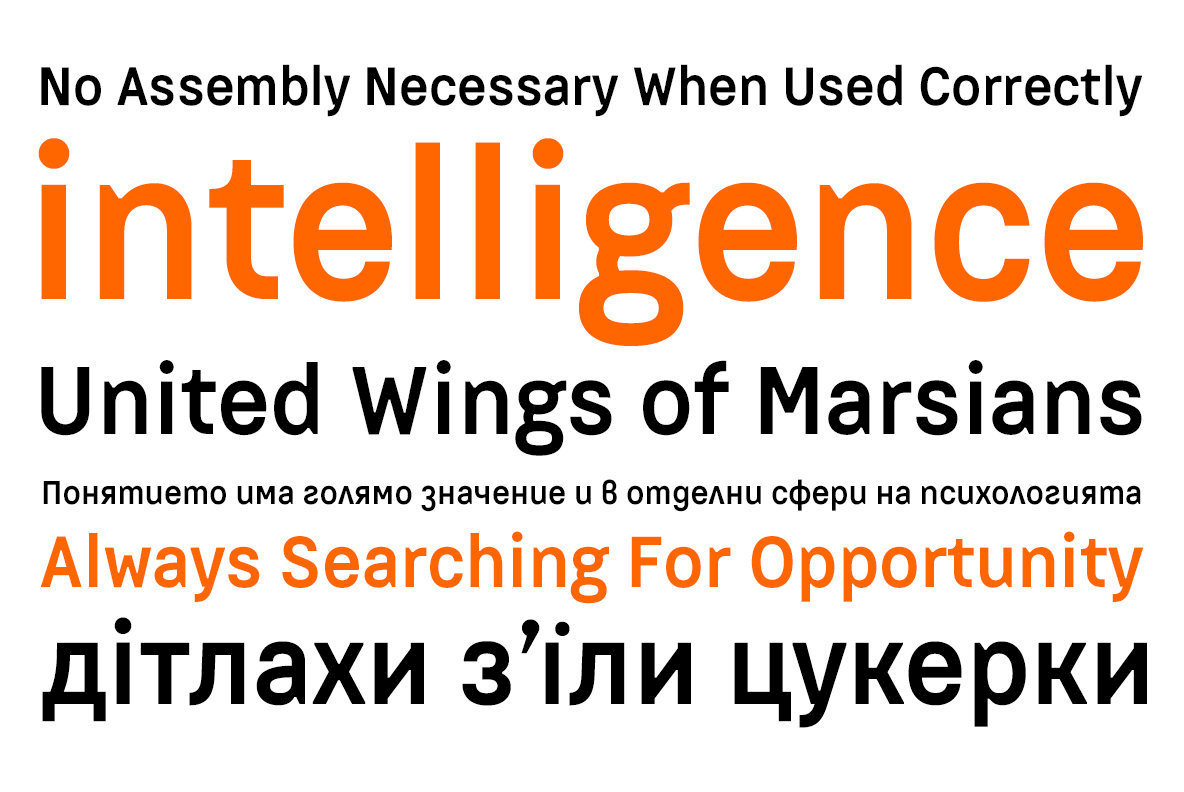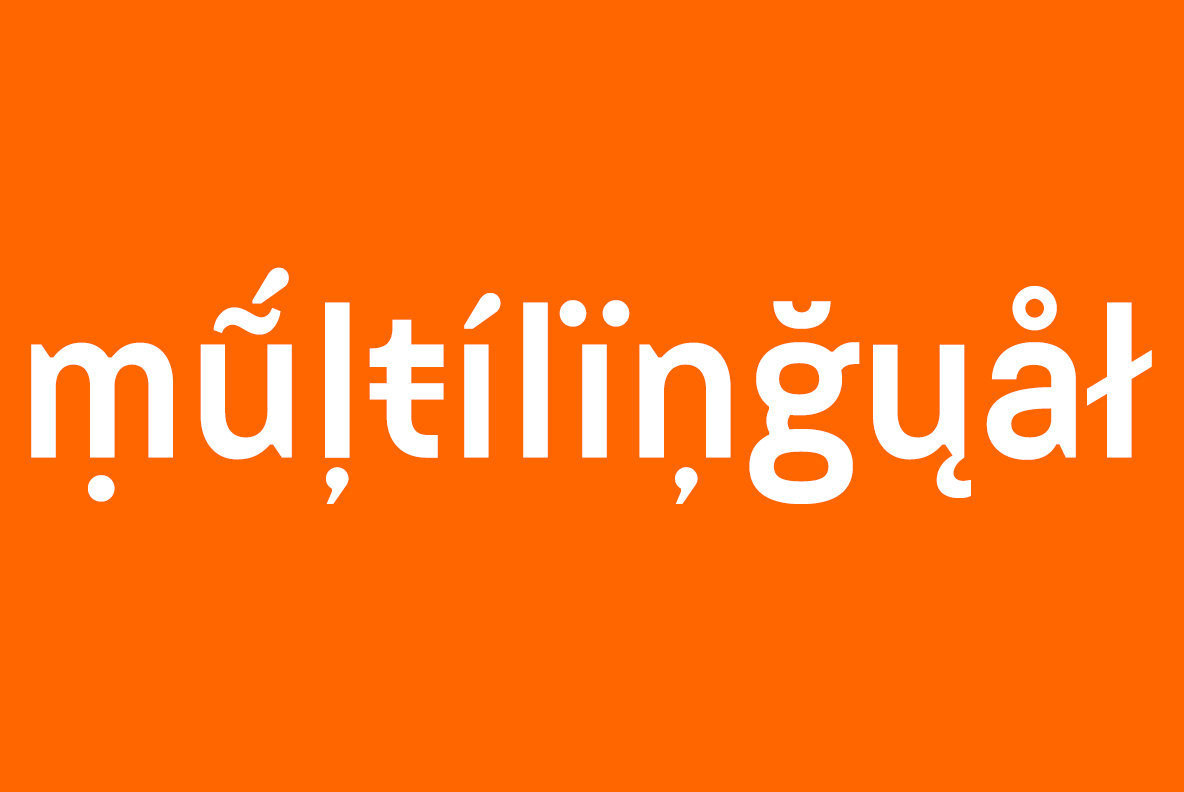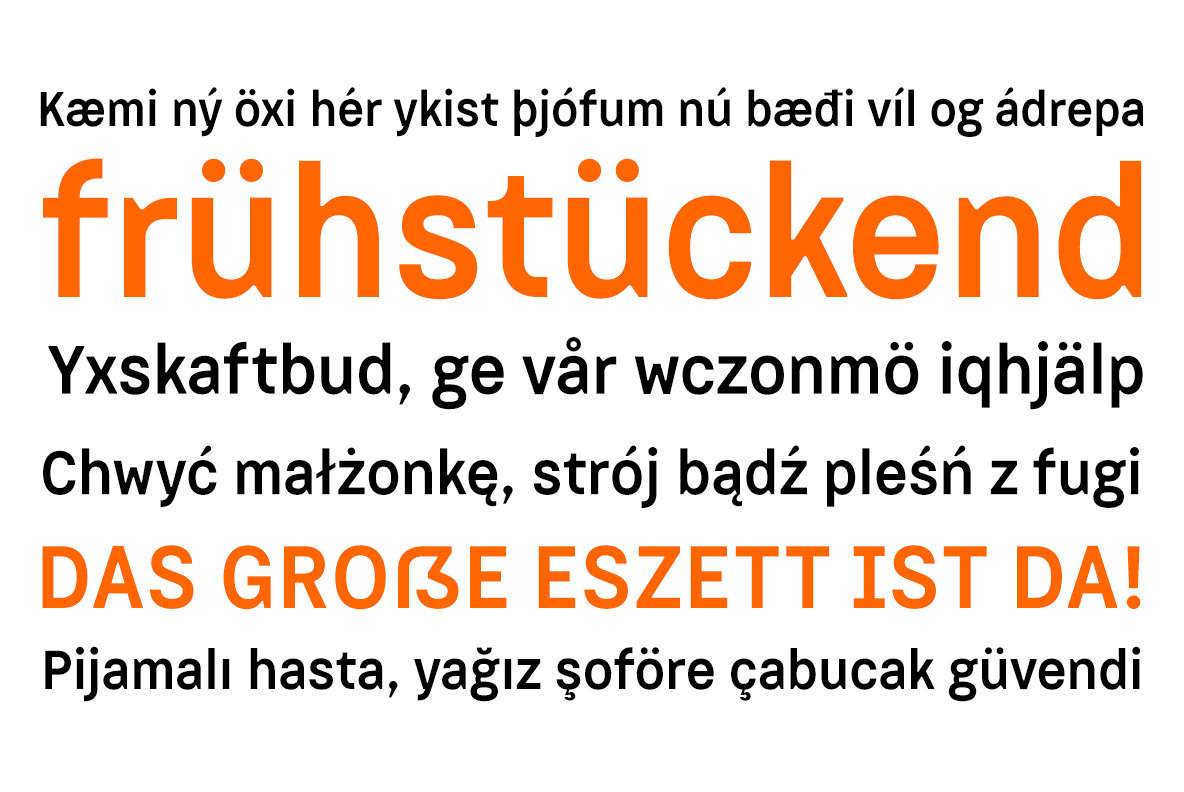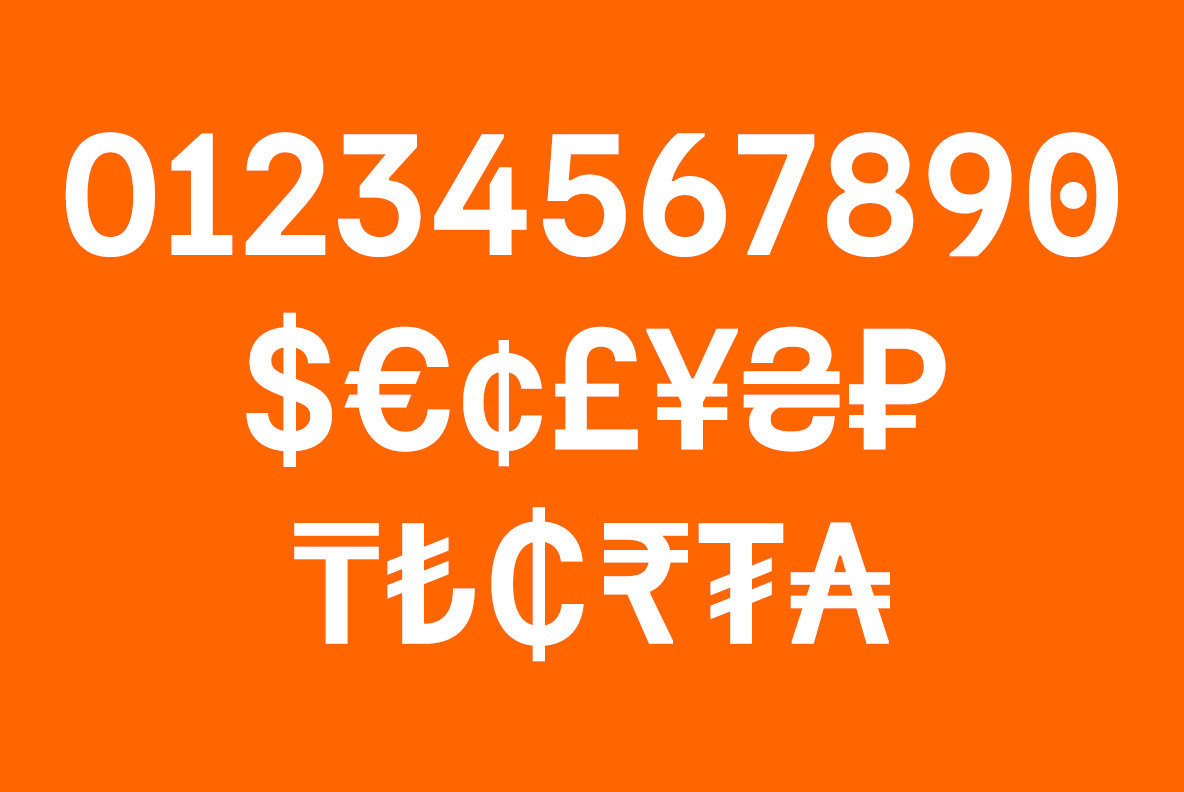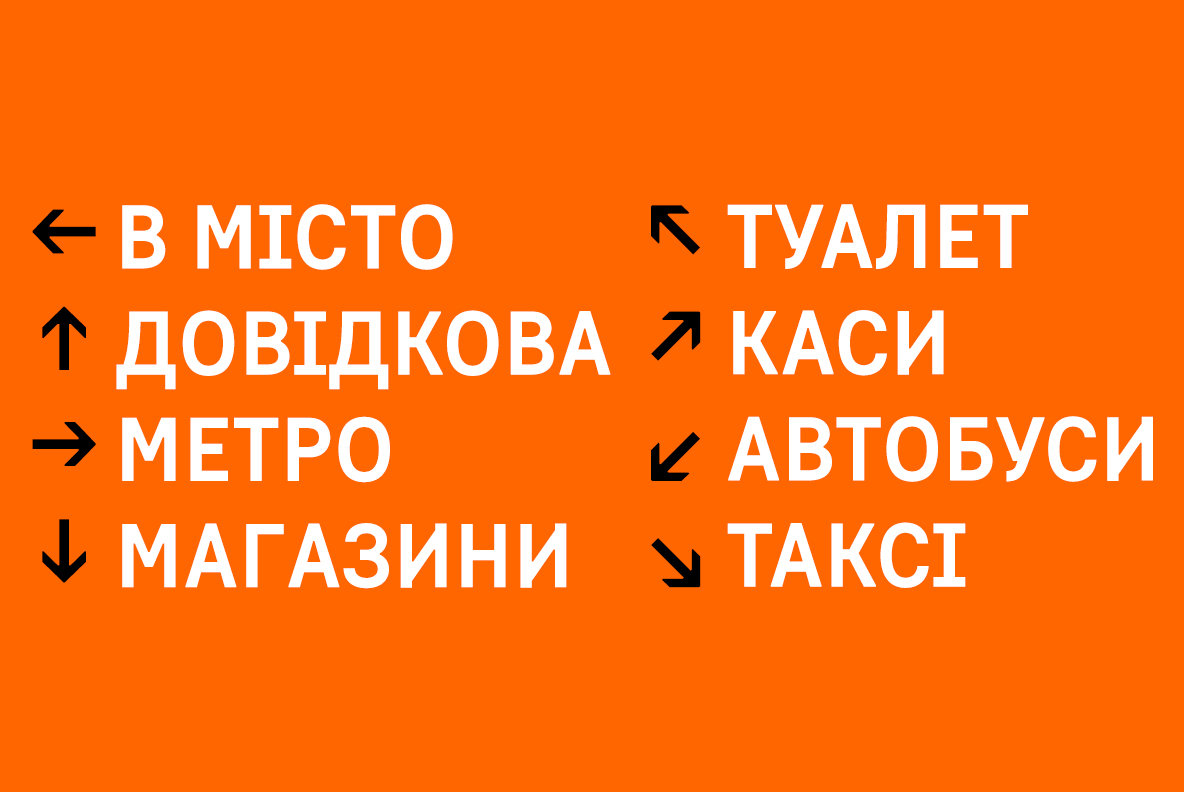
Dart 4F 1
The face’s industrial roots are in stamp press lettering, license plates, phone books, signage and in early OSes, and its support for many European languages makes it flexible for a wide variety of applications